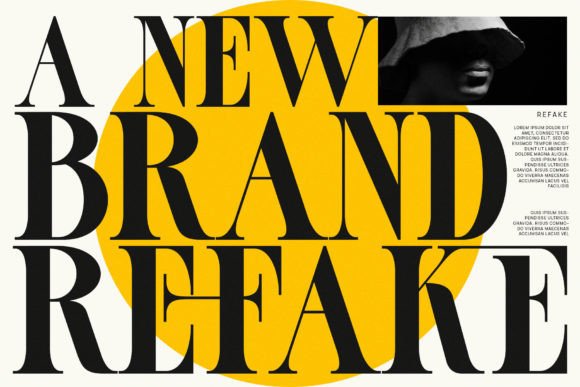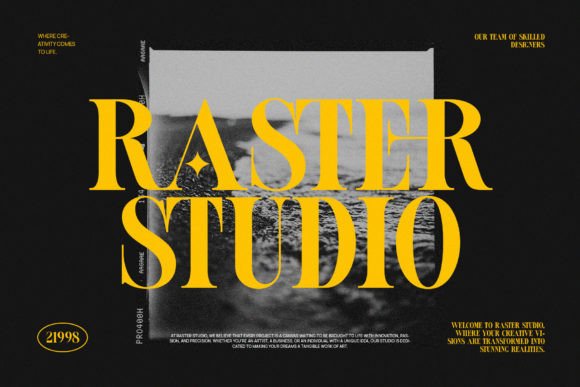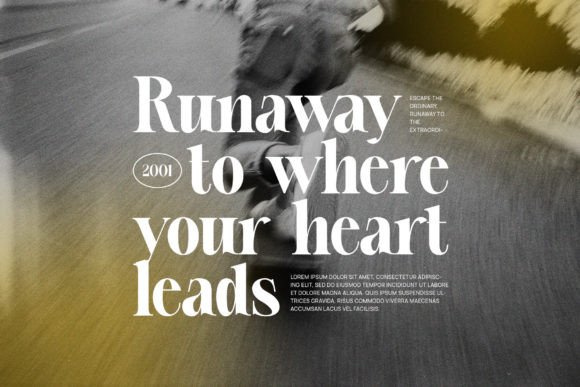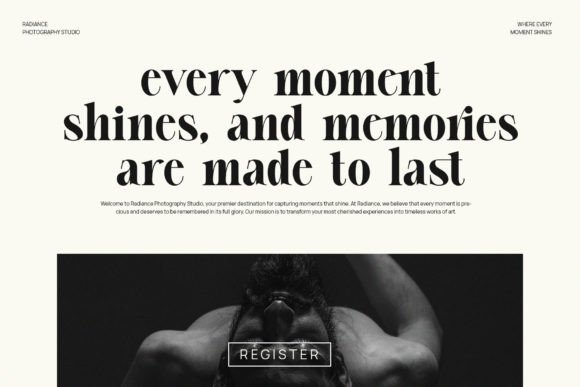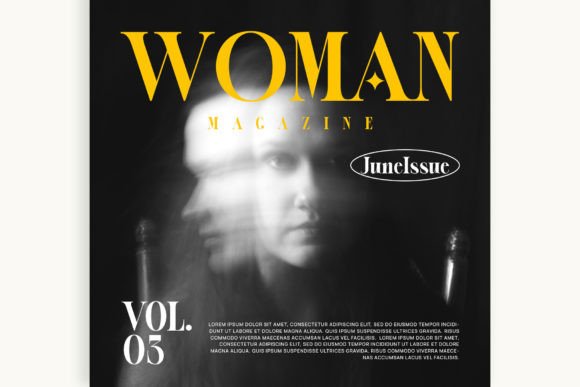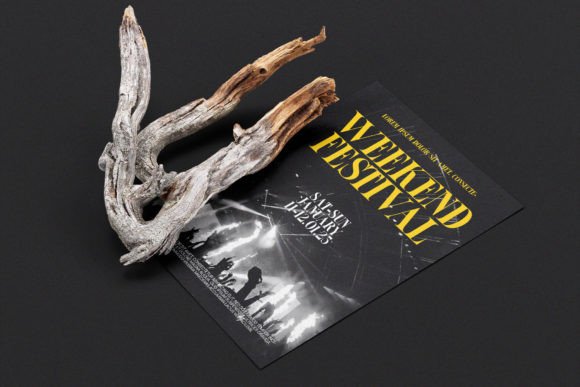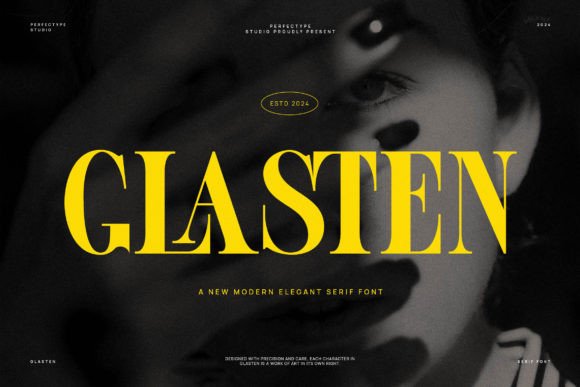
Discover the Elegance of Glasten Font: Elevate Your Editorial Content
In the world of typography, the right font can make all the difference in elevating your editorial content from ordinary to extraordinary. For designers and crafters seeking a typeface that exudes elegance and sophistication, Glasten Font is an exceptional choice. This modern serif typeface is specifically designed to bring a touch of refinement to magazine and newspaper layouts, making it an ideal selection for those who value readability and style.
The Characteristics of Glasten Font
Glasten Font is characterized by its elegant and modern serif design. Its sleek lines and refined features make it a versatile typeface suitable for various editorial applications. The font’s serif design adds a touch of classic sophistication, while its modern twist ensures it remains fresh and contemporary. This blend of traditional and modern elements makes Glasten an excellent choice for designers looking to create visually appealing content.
Readability and Versatility
One of the standout features of Glasten Font is its exceptional readability. In an era where readers are bombarded with content, a font that can capture attention and maintain it is invaluable. Glasten’s clear and elegant design ensures that readers can effortlessly navigate through text, making it perfect for body text, headlines, and subheadings. Its versatility allows it to be used across various platforms, from print to digital media, without losing its impact.
Ideal for Editorial Content
For editorial content, the choice of font is crucial in setting the tone and conveying the message effectively. Glasten Font, with its elegant style and high readability, is specifically suited for use in:
- Headlines: Grab attention with Glasten’s bold and elegant serifs, making your headlines stand out.
- Subheadings: Provide a clear hierarchy in your content with Glasten’s subtle yet distinctive subheading style.
- Body Text: Ensure your readers stay engaged with Glasten’s highly readable body text, perfect for long-form content.
Why Choose Glasten Font?
Choosing Glasten Font for your editorial projects comes with several advantages:
- Elegance: Adds a sophisticated touch to your content.
- Readability: Ensures your message is conveyed clearly and effectively.
- Versatility: Suitable for a wide range of editorial applications and platforms.
- Modern Appeal: Keeps your content looking fresh and contemporary.
Tips for Using Glasten Font Effectively
To maximize the impact of Glasten Font in your designs:
- Mix and Match: Experiment with different weights and styles of Glasten to create visual hierarchy and interest.
- Pair Wisely: Combine Glasten with complementary fonts to enhance your content’s visual appeal.
- Consider Context: Tailor your use of Glasten to suit the tone and purpose of your editorial content.
Glasten Font is a powerful tool for designers and crafters aiming to elevate their editorial content. Its elegant and modern serif design, combined with exceptional readability, makes it an excellent choice for a wide range of applications. Whether you’re working on a magazine, newspaper, or digital content, Glasten is sure to bring a touch of sophistication and professionalism to your projects. Discover the elegance of Glasten Font and take your editorial designs to the next level.